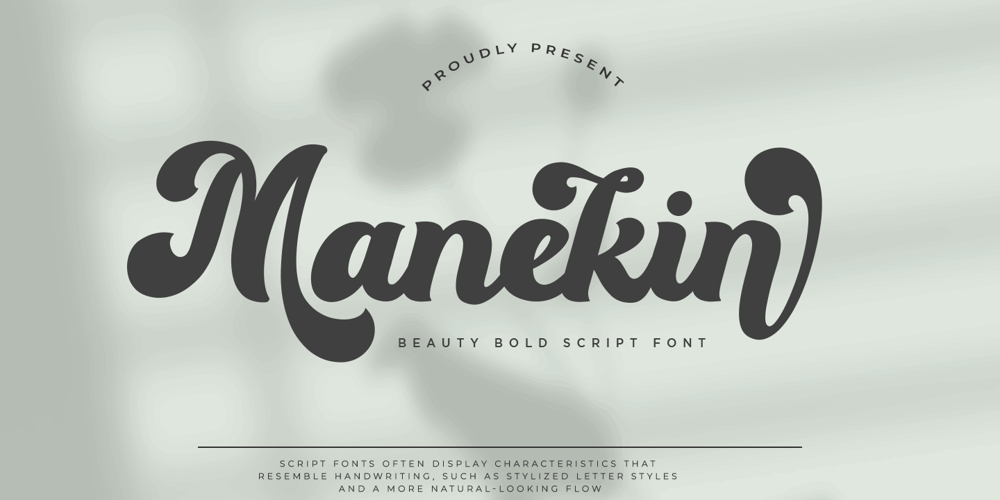
Manekin Font Family was designed by Mussyayin and published by Say Studio. Manekin contains 1 styles and family package options. Manekin is Beauty Bold Script Font with a Beauty vintage style.This font is also equipped with 40+ stylistic Alternates and ligatures and also multi-language support which further adds to the creativity in using this font.This font is perfect for your creative projects such as Logotype, printed quotes, invitations, cards, product packaging, headers, Letterhead, Apparel , Web design, Magazine, Book, etc.FEATURES:- Uppercase- Lowercase- Punctuation and Marks- Symbols- 40+ stylistic Alternates & LigaturesThanks, Have a wonderful Day,Say Studio